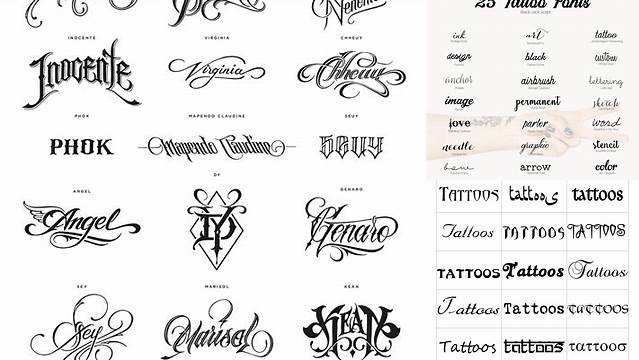
Tattoo Fonts: Your Ultimate Guide
Choosing the right font for your tattoo is a big deal, guys! It's not just about picking something that looks cool; it’s about finding a font that reflects the meaning and vibe of your tattoo. The font you pick can seriously change how your tattoo is perceived, so let's dive into the awesome world of tattoo fonts and find the perfect match for your ink!
Script Fonts
When it comes to script fonts, think elegance and flow. These fonts mimic handwriting and calligraphy, bringing a personal and artistic touch to your tattoo. Script fonts are super versatile, working well with quotes, names, or even single words. They can be fancy and formal or relaxed and casual, depending on the specific style you choose. Some popular script fonts include:
- Calligraphy Scripts: These are classic and graceful, perfect for adding a touch of sophistication. Imagine delicate swirls and elegant strokes that make your tattoo look like a work of art.
- Cursive Scripts: More relaxed and flowing than calligraphy, cursive scripts are great for creating a personal and intimate feel. They’re like a handwritten note on your skin!
- Spencerian Scripts: Think vintage charm. Spencerian scripts are elaborate and ornate, perfect for those who love a touch of old-world elegance. They’re like stepping back in time with your tattoo.
- Blackletter Scripts: Also known as Gothic scripts, these fonts are bold and dramatic. They have a medieval vibe, making them perfect for adding a bit of edge and mystery to your ink. Be careful, though; they can be harder to read if not done correctly.
When using script fonts, make sure the letters are spaced properly and the lines are clean. A skilled tattoo artist will know how to adjust the font to fit your body and ensure it remains legible over time. After all, you want your tattoo to look as good in ten years as it does today!
Let’s talk about serif fonts. These fonts have little decorative strokes or “feet” at the end of each letter, giving them a classic and traditional look. Serif fonts are often associated with authority and professionalism, making them a solid choice if you want your tattoo to have a timeless feel. Some popular serif fonts include:
- Times New Roman: A super common and recognizable font, Times New Roman is reliable and readable. It’s a safe bet if you want something that will always look good.
- Garamond: This font is elegant and refined, with a slightly softer look than Times New Roman. It’s great for adding a touch of sophistication to your tattoo without being too flashy.
- Georgia: Designed to be readable on screens, Georgia is also a great choice for tattoos. It’s clear, clean, and easy to read, making it perfect for longer quotes or names.
- Trajan: Inspired by Roman inscriptions, Trajan is a strong and powerful font. It’s perfect for making a statement and adding a sense of history to your tattoo.
Serif fonts are great for those who want a tattoo that feels grounded and established. They’re perfect for quotes, dates, or names, adding a touch of class and history to your ink. Just remember to choose a size that’s easy to read, especially for longer pieces.
Now, let's move on to sans-serif fonts. These fonts don’t have the little decorative strokes that serif fonts do, giving them a clean and modern look. Sans-serif fonts are often associated with simplicity and clarity, making them a great choice for those who want a minimalist tattoo. Some popular sans-serif fonts include:
- Arial: A super common font, Arial is clean, simple, and easy to read. It’s a great choice if you want something that’s straightforward and no-fuss.
- Helvetica: Known for its clean lines and neutral appearance, Helvetica is a classic sans-serif font that works well in a variety of settings. It’s a versatile choice that will always look good.
- Futura: This font has a geometric design, giving it a modern and futuristic feel. It’s perfect for those who want a tattoo that looks like it’s from the future.
- Open Sans: Designed to be readable on screens, Open Sans is also a great choice for tattoos. It’s clear, friendly, and easy to read, making it perfect for a wide range of designs.
Sans-serif fonts are awesome for those who dig a minimalist and contemporary vibe. They're super versatile and can be used for just about anything, from single words to longer phrases. The trick is to nail the size and spacing so it's easy to read and looks slick on your skin.
Display Fonts
Alright, guys, let’s talk about display fonts! These are the wildcards of the font world, designed to catch the eye and make a statement. Display fonts are all about personality and uniqueness, making them perfect for tattoos that want to stand out from the crowd. Some popular display fonts include:
- Stencil Fonts: Inspired by stencils, these fonts have a rugged and industrial feel. They’re perfect for adding a bit of edge and rebellion to your tattoo.
- Graffiti Fonts: These fonts mimic the look of graffiti art, with bold lines and a street-style vibe. They’re great for those who want to express their urban roots.
- Tribal Fonts: Inspired by tribal art, these fonts have a strong and exotic feel. They’re perfect for adding a touch of culture and history to your tattoo.
- Retro Fonts: These fonts bring back the styles of the past, from the groovy fonts of the ’70s to the bold fonts of the ’80s. They’re perfect for those who want to add a touch of nostalgia to their ink.
Display fonts are perfect for when you really want your tattoo to pop and show off your unique style. But remember, because they're so unique, they might not always be the easiest to read. So, think about what you want to say and how you want to say it. A good tattoo artist can help you tweak the font to make sure it’s both eye-catching and clear.
Considerations for Choosing a Tattoo Font
Choosing the right tattoo font involves several important considerations. Think about the message you want to convey with your tattoo. Is it a tribute to someone, a personal mantra, or a symbol of your beliefs? The font should complement the meaning and enhance the overall impact of the design. Some key things to keep in mind:
- Readability: Make sure the font is easy to read, even from a distance. Avoid fonts that are too decorative or intricate, as they can become illegible over time.
- Size: Consider the size of your tattoo and choose a font that fits the space. Smaller tattoos require simpler fonts, while larger tattoos can accommodate more elaborate designs.
- Placement: Think about where you’re getting the tattoo and how the font will look on that part of your body. Fonts can look different depending on the contours and curves of your body.
- Longevity: Choose a font that will stand the test of time. Avoid trendy fonts that may look dated in a few years. Classic fonts are always a safe bet.
- Artist’s Expertise: Work with a tattoo artist who is experienced in working with different fonts. They can help you choose the right font and adjust it to fit your design.
So, there you have it, a deep dive into the world of tattoo fonts! Picking the perfect font is a crucial part of getting a tattoo that you’ll love forever. Whether you go for the classic elegance of a script font, the timeless appeal of a serif font, the modern simplicity of a sans-serif font, or the bold statement of a display font, make sure it vibes with your personality and the meaning behind your ink. And remember, your tattoo artist is your best buddy in this process. They can give you the lowdown on what works best and make sure your tattoo looks amazing for years to come. Happy tattooing, folks!